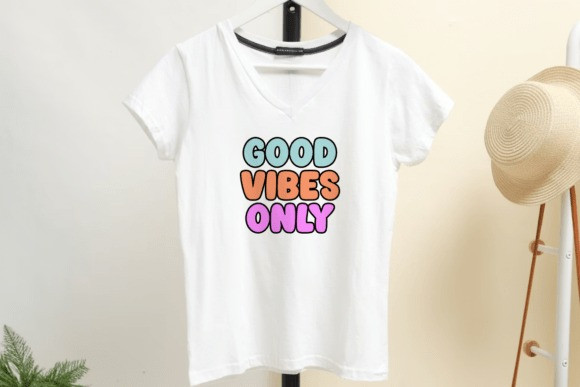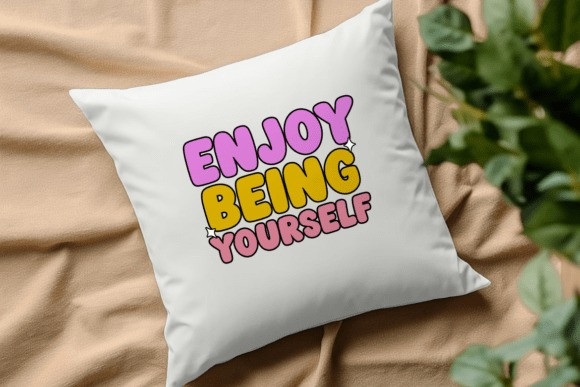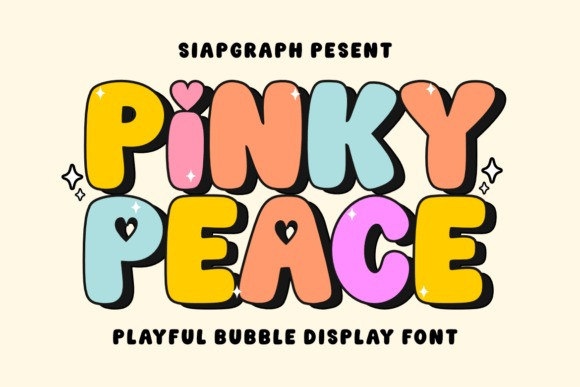
Pinky Peace Font
Pinky Peace Font a bold and bubbly display font that radiates retro-cool energy.This typeface features thick, soft-edge characters with “heart” counters and a chunky, 3D-inspired silhouette that feels like it’s straight off a 70s sticker sheet. The Pinky Peace font is the ultimate choice for maximalist designs, streetwear labels, and any project that needs a massive dose of personality and fun.
The Pinky Peace typeface is a powerhouse for branding that targets a Gen Z or nostalgia-loving audience. Its “bubbly” nature makes the Pinky Peace font perfect for stickers, patches, and high-impact social media headers.
Pair this Pinky Peace typeface with vibrant, contrasting colors and “sparkle” motifs to lean fully into the Y2K or retro-revival aesthetic. It works exceptionally well for t-shirt graphics, creative packaging, and event posters that want to project a message of peace, love, and positivity in a way that feels fresh and trendy.